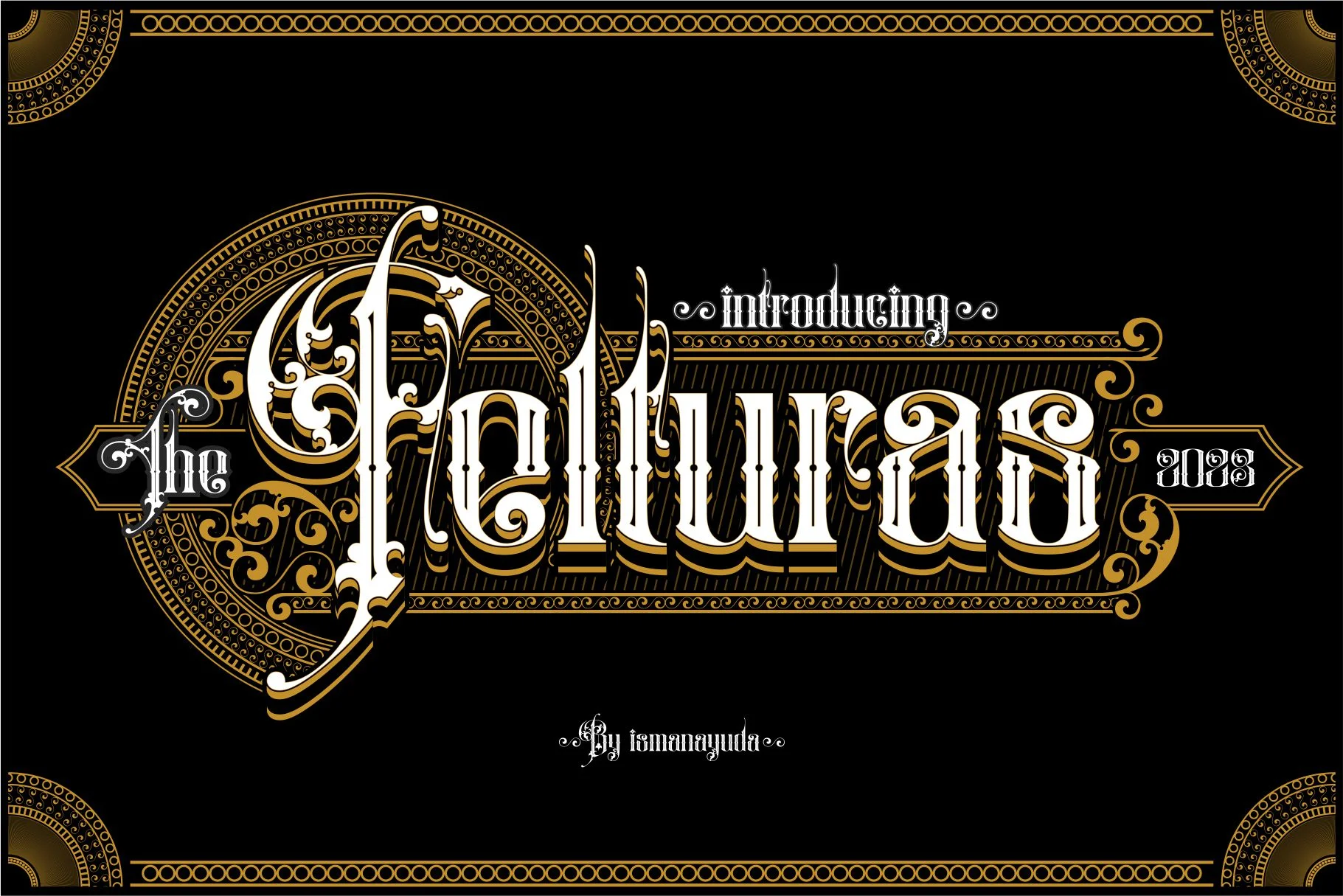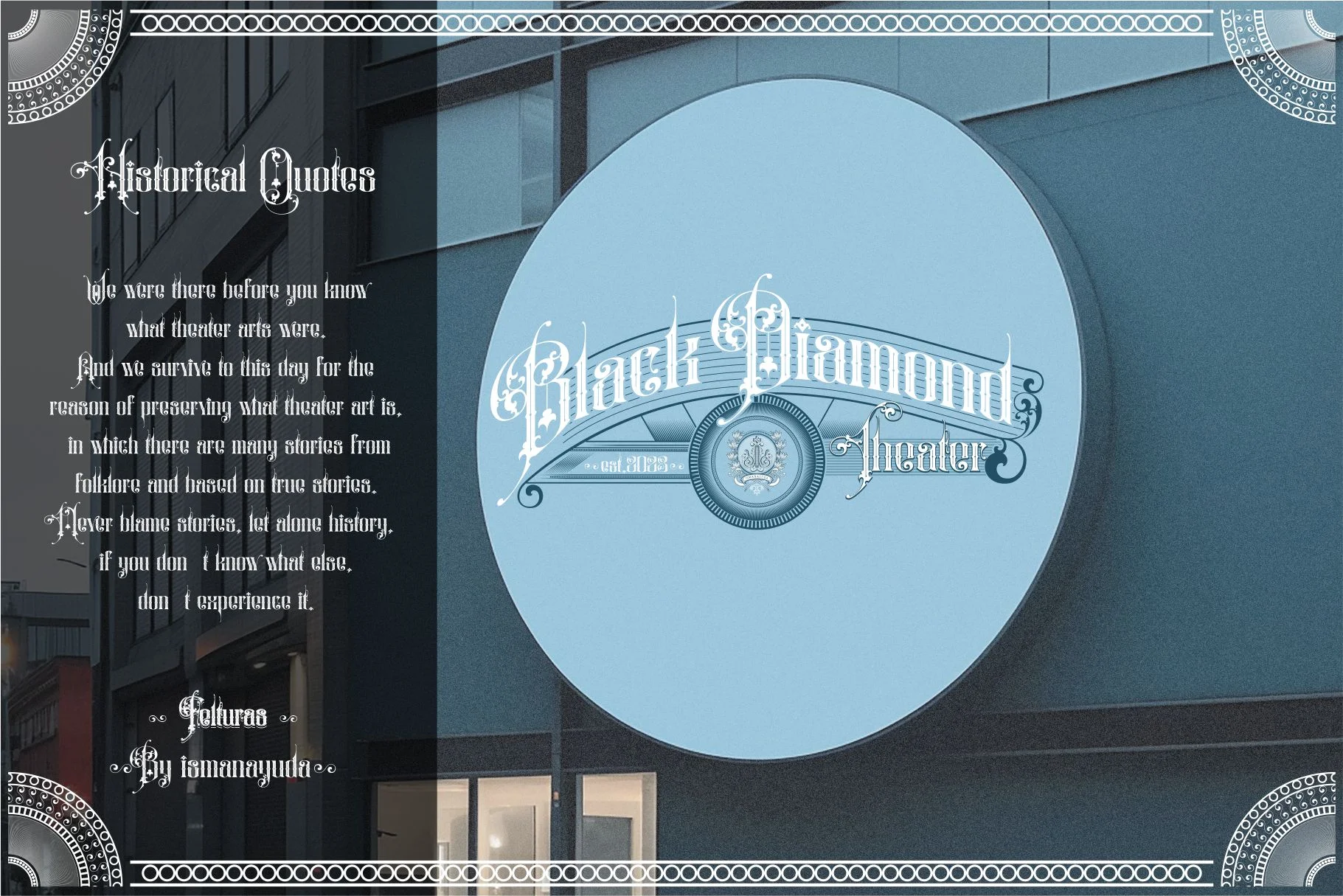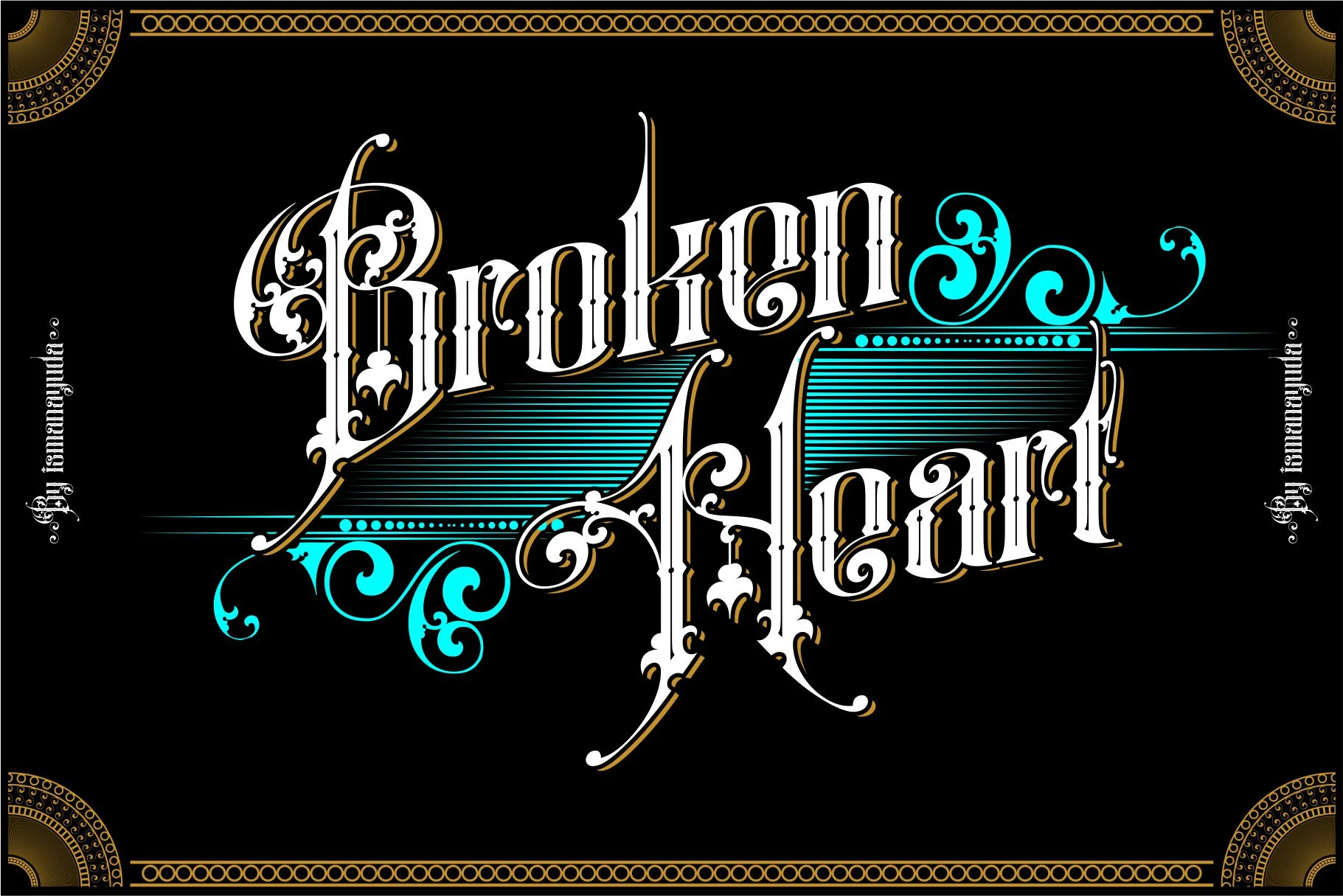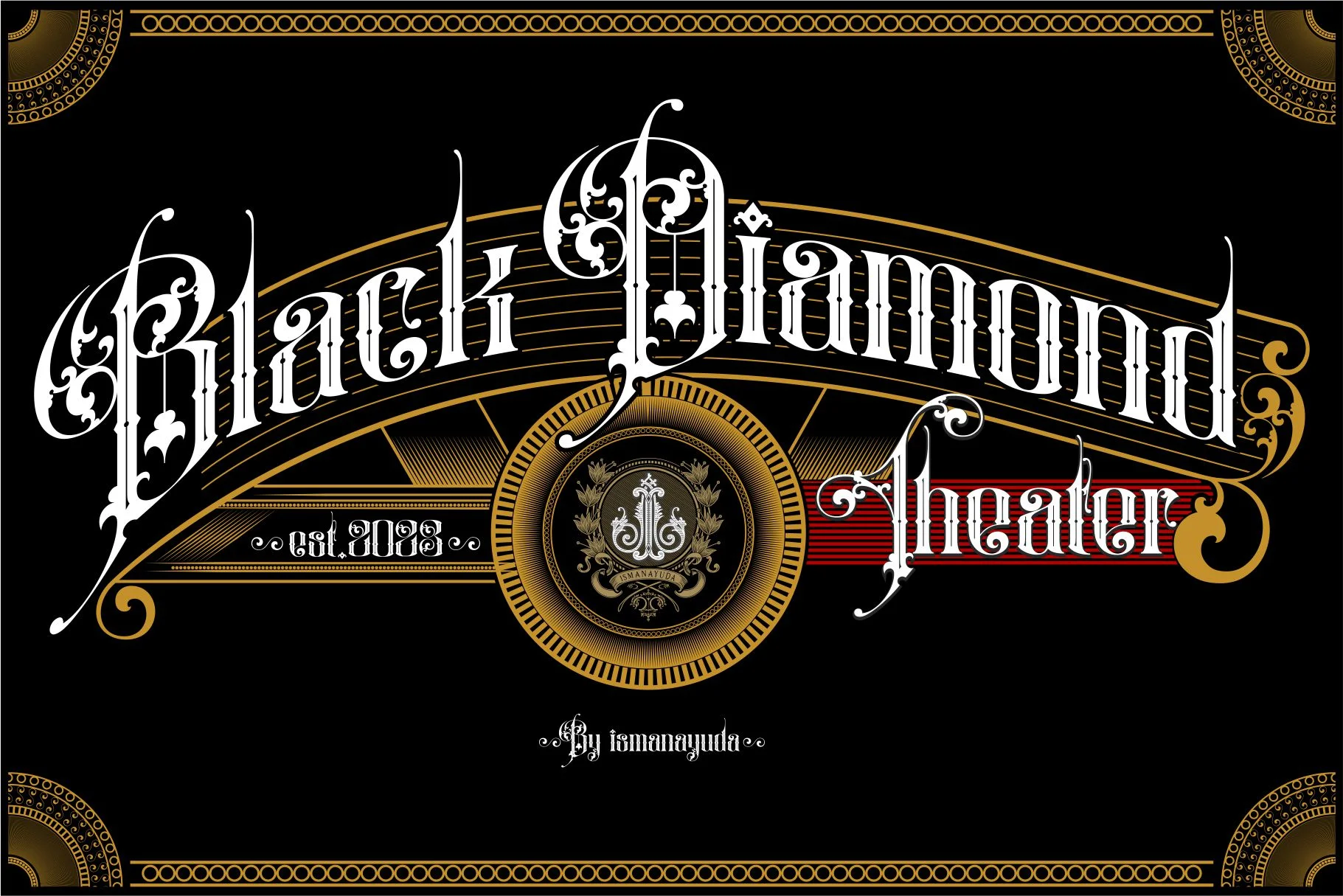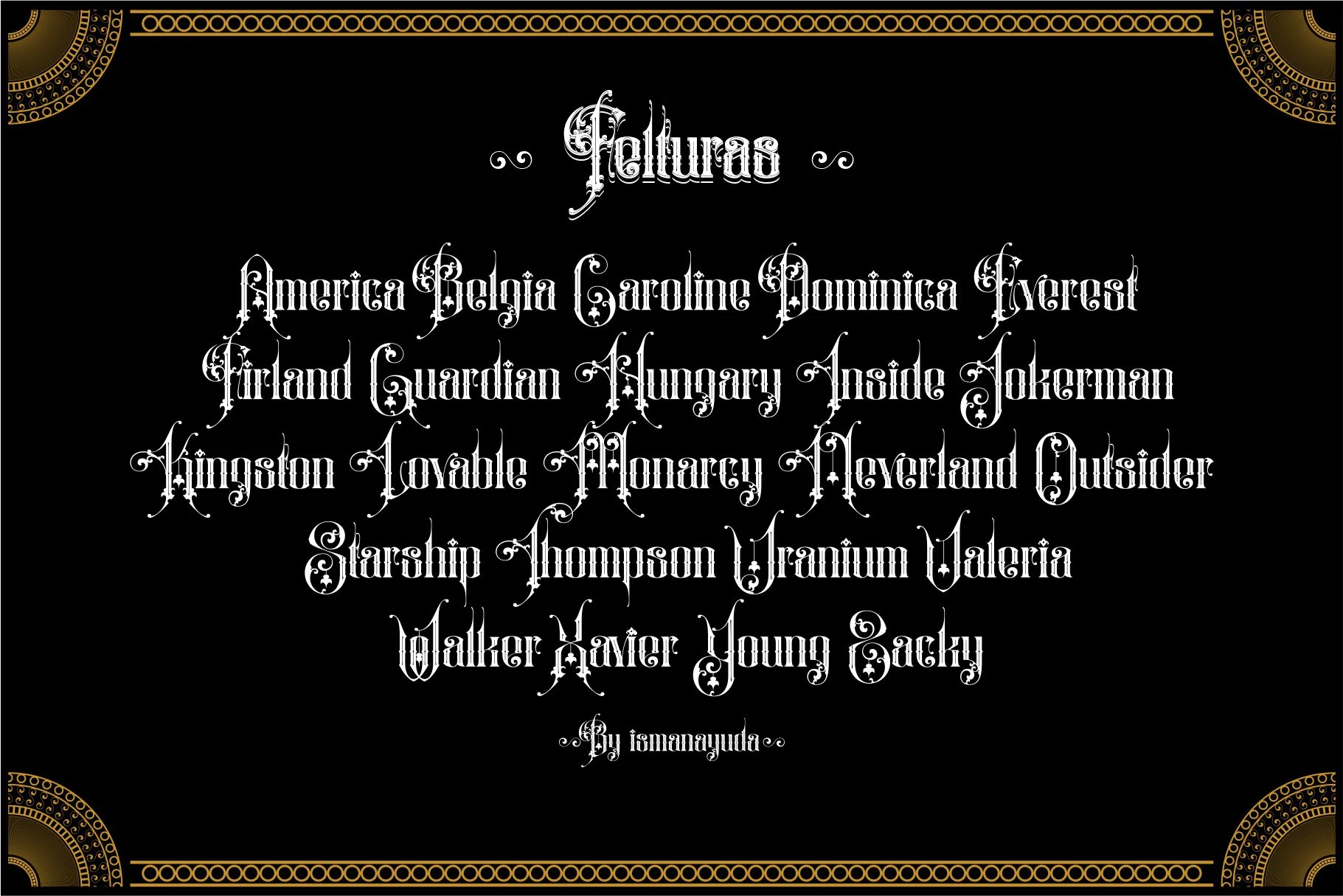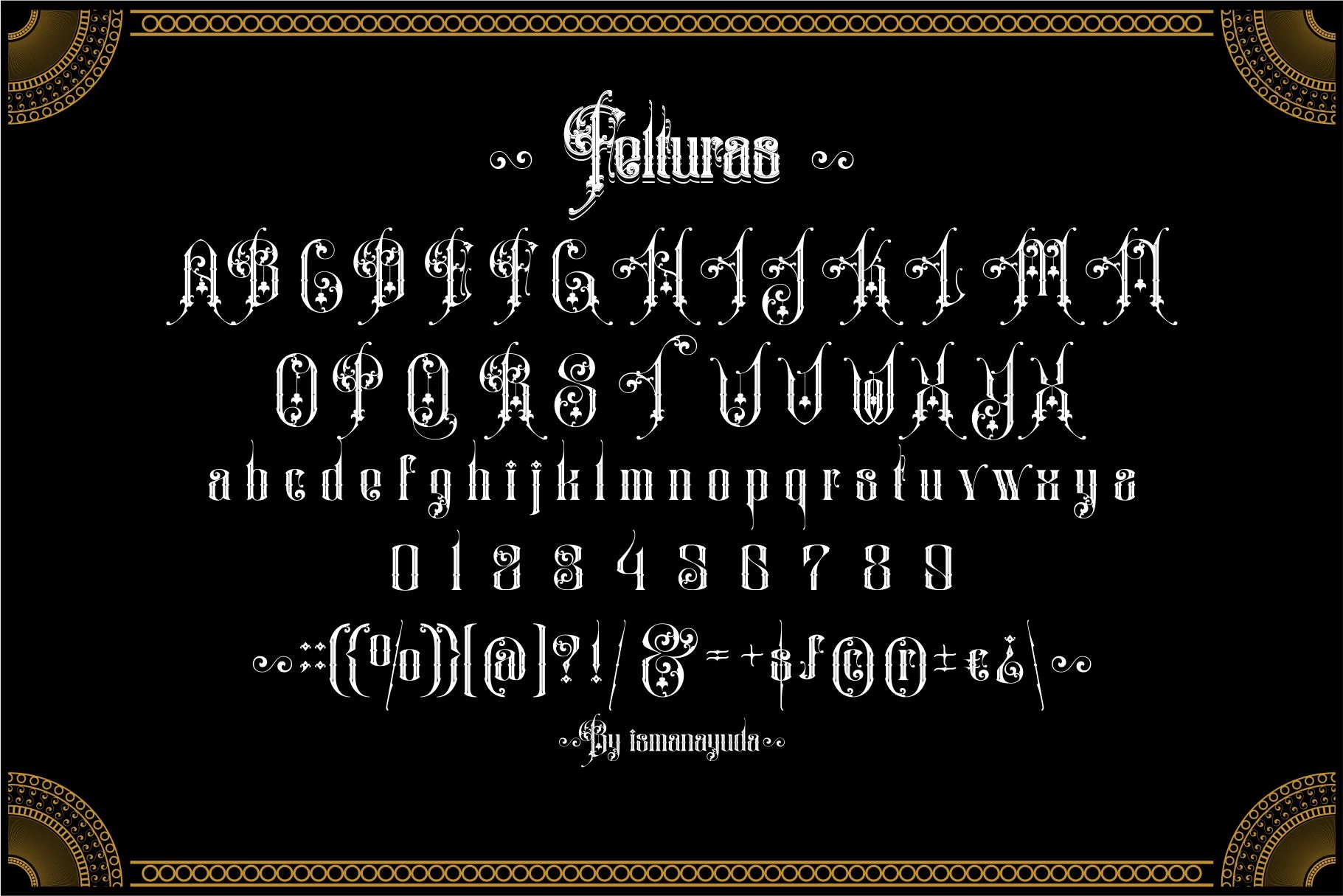
Felturas
FELTURAS is characterized as a bold, uniquely designed Victorian-style blackletter font. It features intricate detailing, ornate serifs, and dramatic swashes that give it a classic yet aggressive aesthetic. This style is specifically tailored for high-impact visual needs such as tattoo studio branding, vintage-inspired apparel mock-ups, and specialized shop signage. The letterforms are characterized by their vertical stress and complex, decorative flourishes common in gothic and blackletter typography.